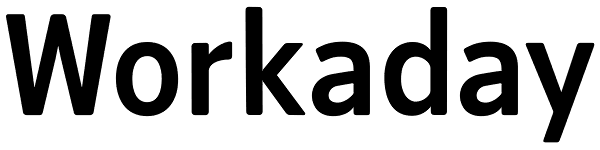
Workaday
Workaday from Yes Please is a bold and clean contemporary take on the classic American Sans Serif. Inspired by the wildly varied history of early to mid 20th century American signage, aircraft markings and industrial shipping vernaculars, Workaday...